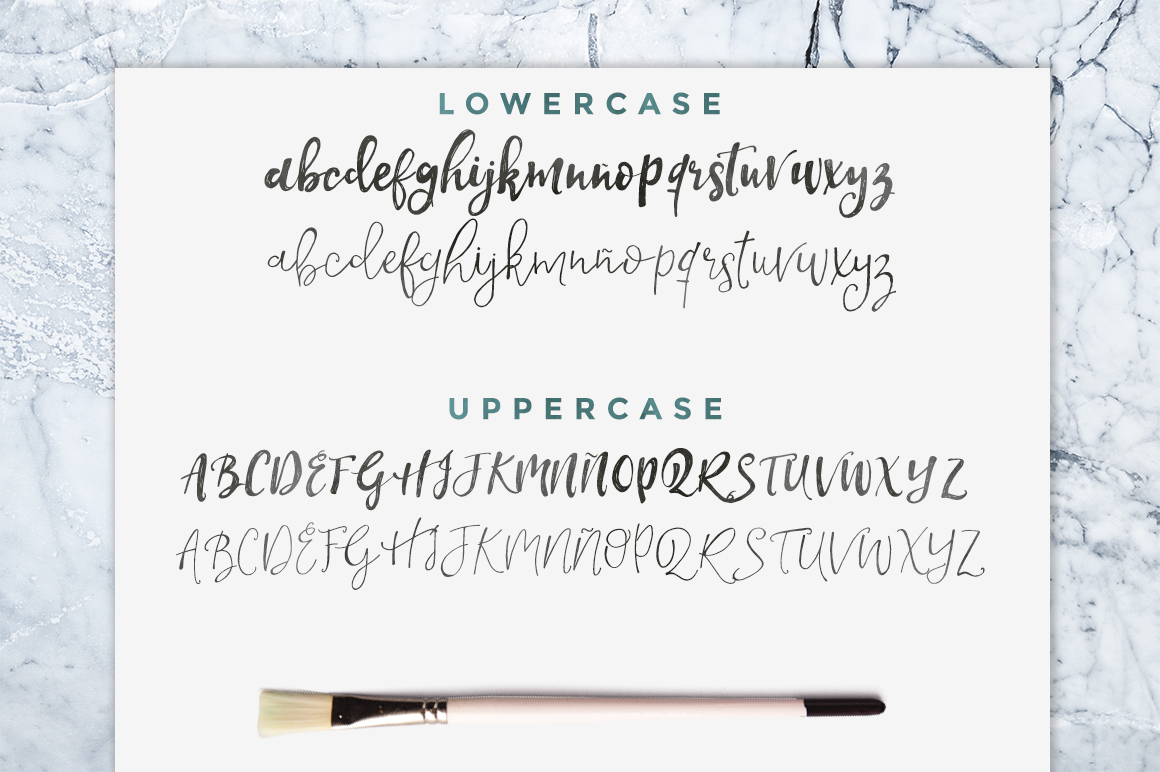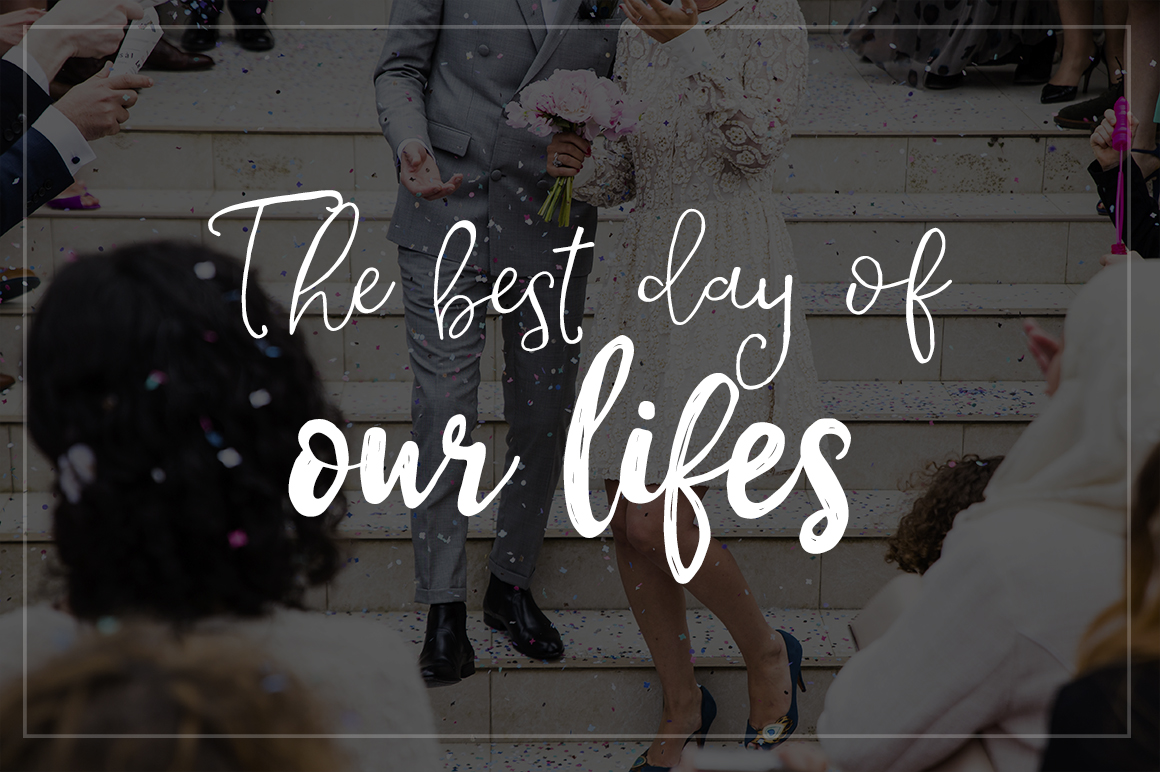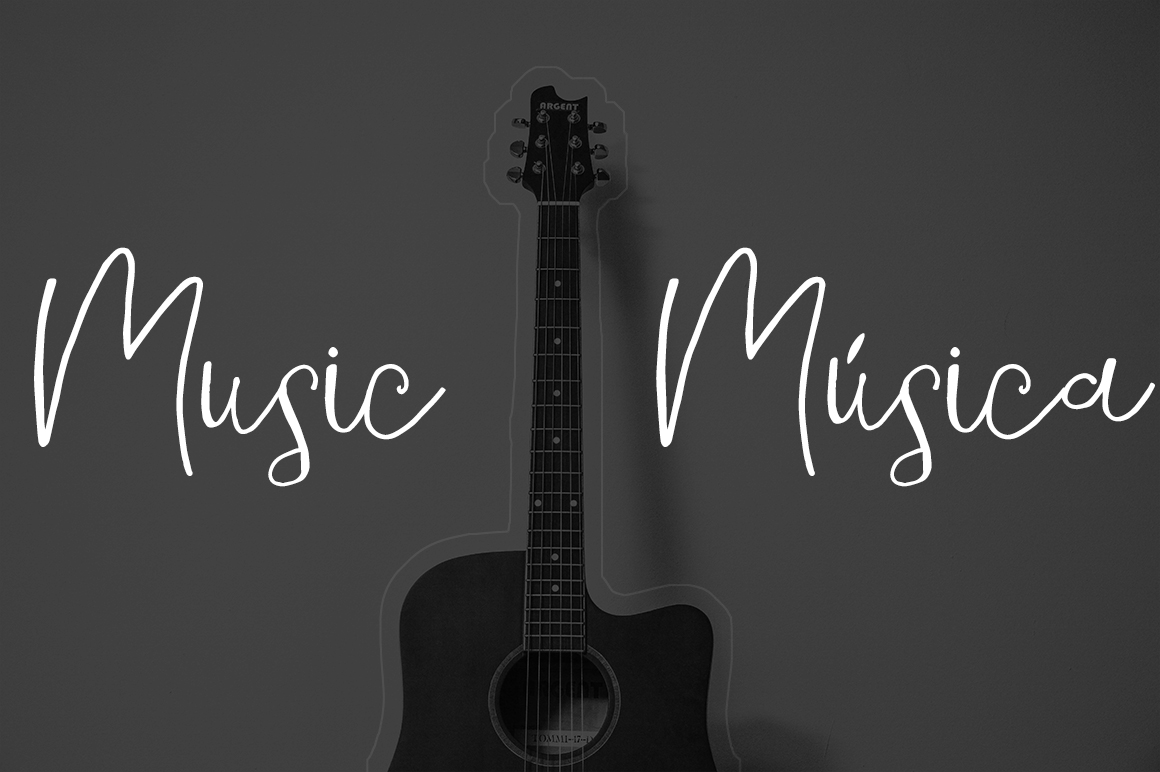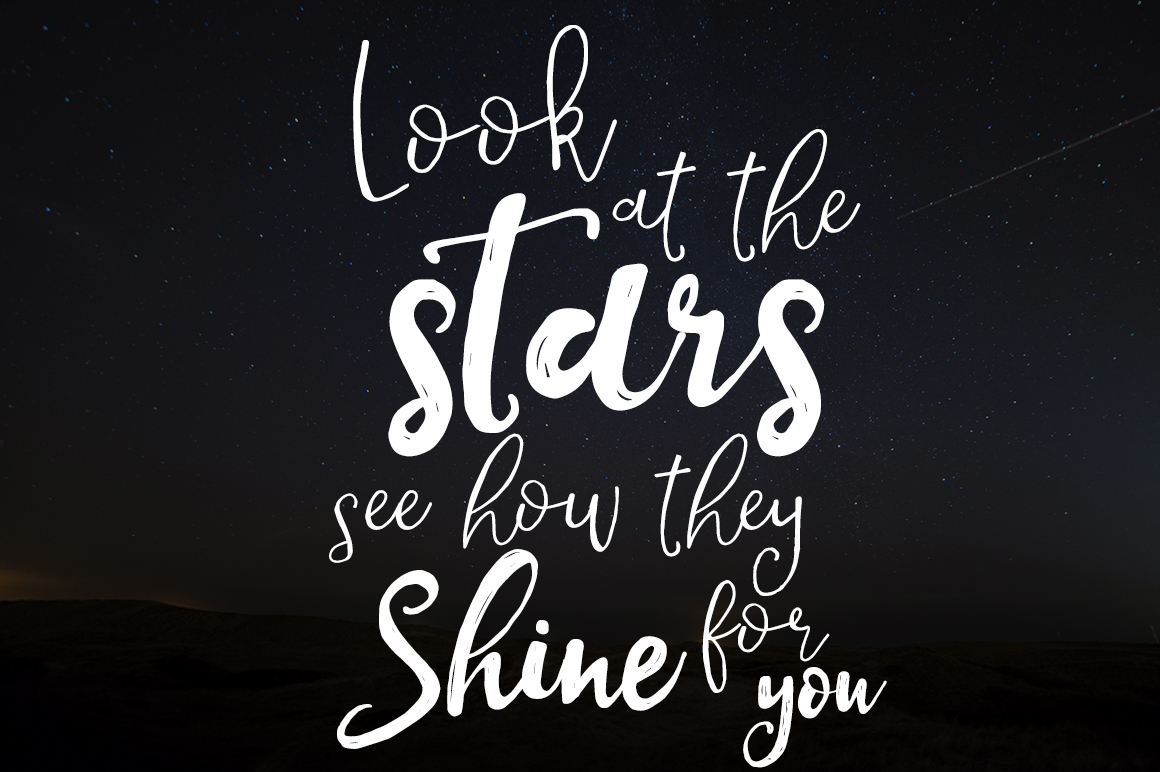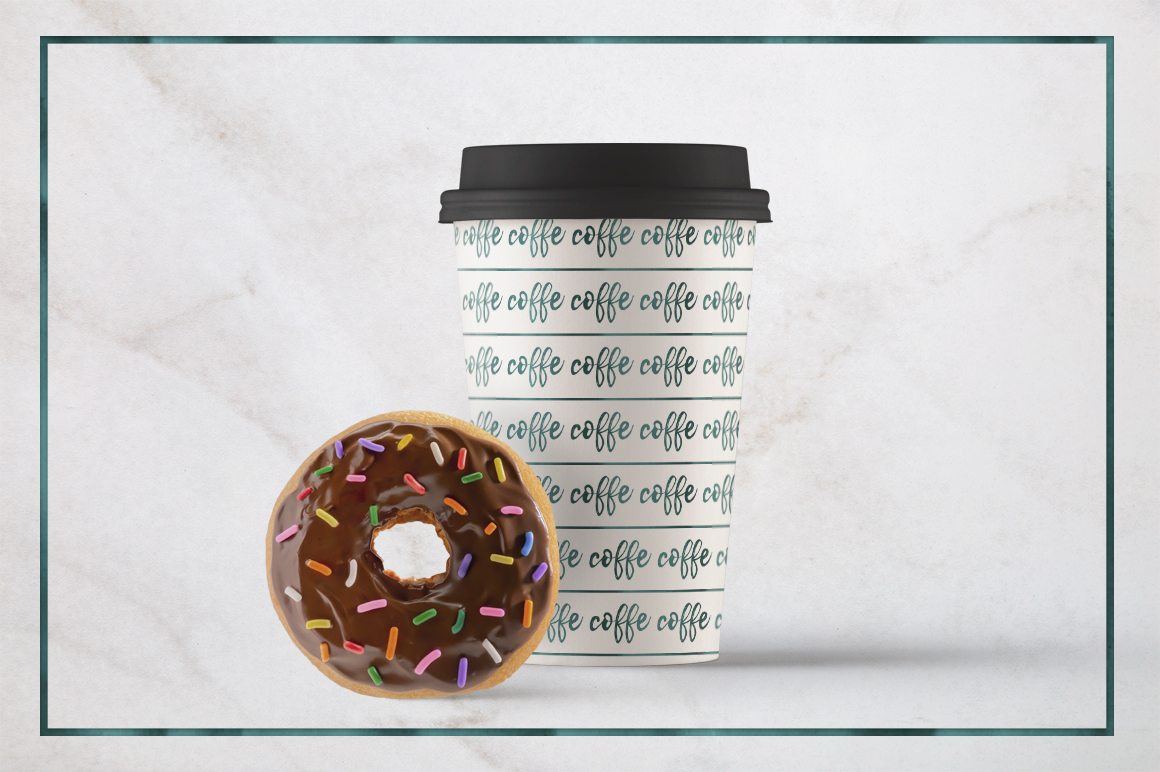
The Font that Stole My Heart: A Deep Dive into Esmeralda Font
I still remember the day I stumbled upon the Esmeralda font duo. I was working on a project for a client who wanted a feminine and elegant touch, and I was on a mission to find the perfect font. Hours of scrolling through font libraries and testing out different combinations had left me frustrated and font-fatigued. That’s when I saw it – Esmeralda, with its soft, handmade charm. It was love at first sight! 💕
So, what makes Esmeralda so special? Here are a few things that I absolutely adore:
- ✨ Handmade charm: Esmeralda is completely made by hand, giving it a unique, organic feel that’s hard to find in digital fonts.
- ✅ Feminine and elegant: The soft, flowing lines of Esmeralda make it perfect for projects that require a touch of sophistication and femininity.
- 💯 Versatility: The font duo comes with two versions – Esmeralda (Regular) and Esmeralda Thin – making it easy to mix and match for a range of design applications.
Of course, no font is perfect, and Esmeralda has a few quirks to be aware of:
- 🤔 Limited use in very small sizes: Due to its handmade nature, Esmeralda can get a bit fuzzy when used in very small sizes. It’s best used in larger sizes (14px and up) for optimal clarity.
- ⚠️ Kerning issues with certain characters: As with any font, there may be some kerning issues with certain character combinations. Be sure to proofread your text carefully to catch any awkward spacing.
The Story Behind Esmeralda: A Designer’s Inspiration
Esmeralda was created with the intention of capturing the soft, elegant feel of handwritten script. The designer, [designer name], was inspired by the beautiful, flowing lines of calligraphy and the uniqueness of handmade writing. The result is a font duo that’s both feminine and sophisticated, perfect for a range of design applications.
- Q: Is Esmeralda suitable for body text?
- A: While Esmeralda is beautiful, it’s best used in larger sizes (14px and up) for optimal clarity. For body text, you may want to consider a clearer font.
- Q: Does Esmeralda come with OpenType features?
- A: Yes, Esmeralda includes OpenType features like ligatures and stylistic alternates.